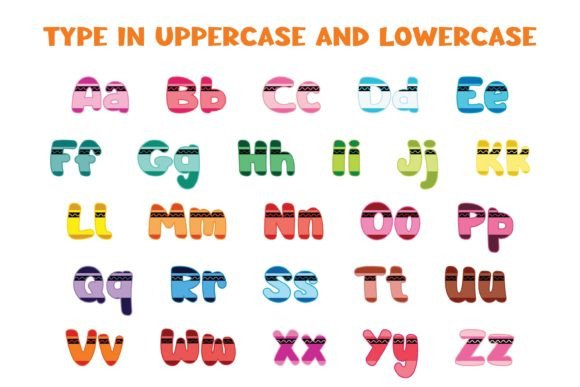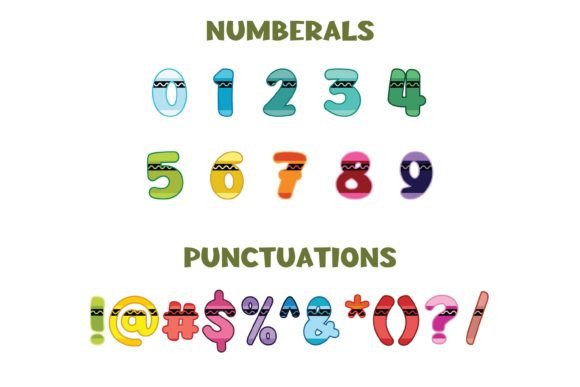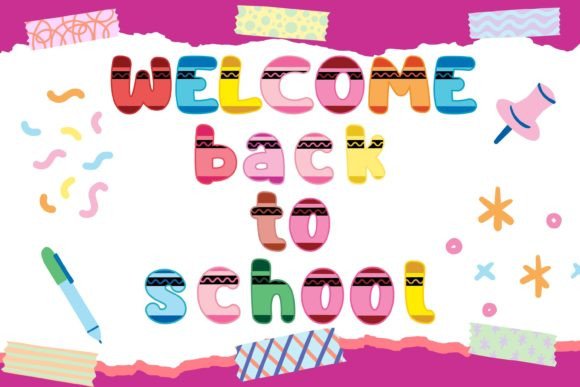
Celebrate Color and Creativity with the Crayon Rainbow Font
Have you ever been rummaging through your craft supplies, only to stumble upon a box of vibrant crayons that instantly spark a wave of creative ideas? The Crayon Rainbow Font is that same feeling, but in digital form. This cheerful and playful font is designed to add a pop of color to your projects, from custom t-shirt designs to handmade cards and stickers.
Whether you’re a seasoned designer or a DIY enthusiast, the Crayon Rainbow Font is a valuable addition to your creative arsenal. With its compatibility with popular design programs like Photoshop and Illustrator, you can easily incorporate this font into your next project. And, with its black version compatible with Cricut Design Space, you can even cut out custom designs with ease. Get ready to unleash your creativity and make a statement with the Crayon Rainbow Font!
- Unique Characteristics: The Crayon Rainbow Font features a colorful, hand-drawn aesthetic with varying line widths, creating a playful and whimsical feel.
- Character Set: The font includes a comprehensive set of characters, including uppercase and lowercase letters, numbers, punctuation marks, and symbols.
- Color Variations: The font includes multiple color variations, allowing users to customize the appearance to suit their design needs.
Crayon Rainbow Font Review
Overall, I have mixed feelings about the Crayon Rainbow Font. While it’s certainly a unique and eye-catching choice, it’s not without its limitations.
- The font’s playful and whimsical feel is perfect for projects that need a touch of childlike wonder.
- The rainbow color scheme is visually appealing and can add a pop of color to any design.
- The font is highly customizable, allowing you to adjust the color palette, size, and even add special effects like glow or shadow.
- The font’s readability can be a concern, especially in larger sizes or when used for body text.
- The font’s lack of consistency in letter spacing and kerning can make it look amateurish in some cases.
- The font may not be suitable for professional or formal projects, as it can come across as too playful or immature.
The Crayon Rainbow Font is a fun and creative choice for designers who want to add a touch of personality to their projects. While it’s not perfect and may have some limitations, it can be a great option for those who want to add some visual interest to their designs.
The Crayon Rainbow Font is perfect for creating colorful and playful designs, such as:
- Children’s party invitations
- Colorful social media graphics
- Playful product labels
- Whimsical wedding invitations